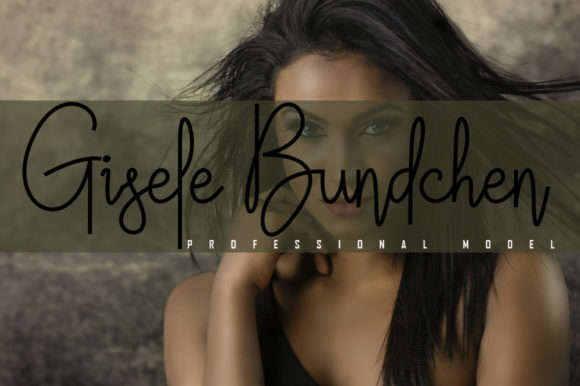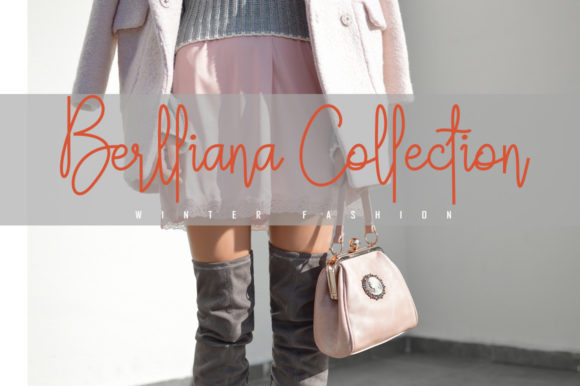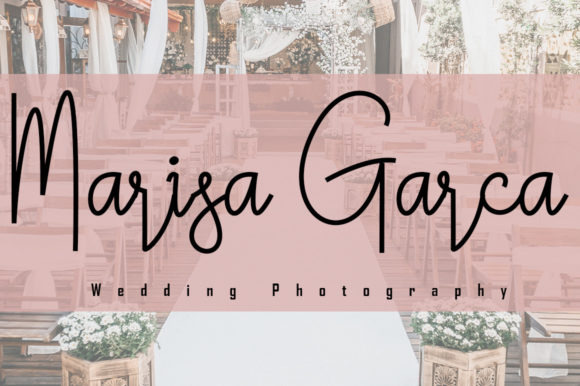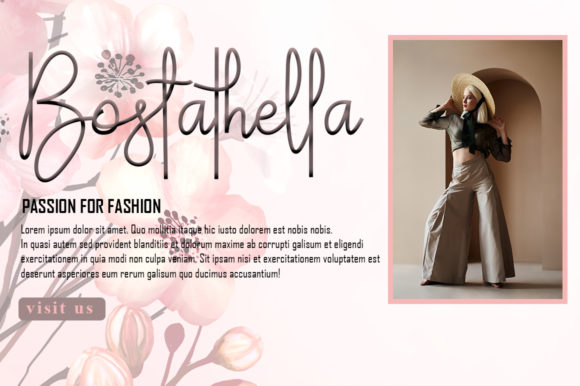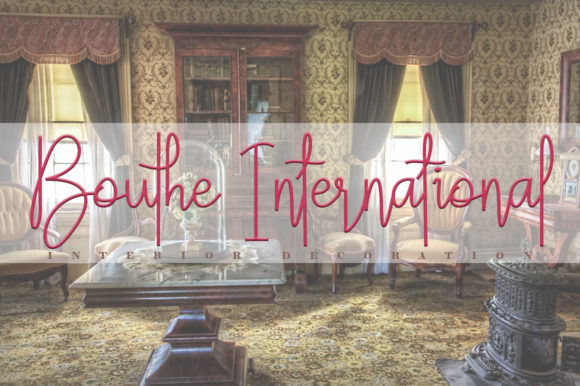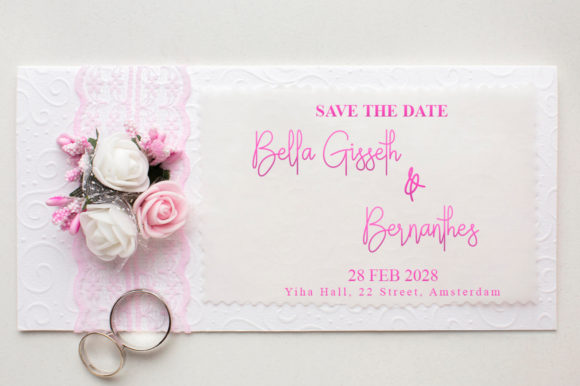
Elevate Your Designs with Black Gray Font: A Timeless and Elegant Choice
In the world of typography, few fonts manage to convey elegance and sophistication as effortlessly as the Black Gray font. This exquisite, thin-lettered, and delicate script font has captured the hearts of designers and crafters alike, and for good reason. Its versatility and refined aesthetic make it an ideal choice for a wide range of design projects, from wedding invitations and thank you cards to quotes, greeting cards, logos, business cards, and more.
The Characteristics of Black Gray Font
Black Gray font is distinguished by its slender lines and delicate curves, which lend it an air of refinement and poise. Its thin lettering allows for a subtle yet impactful presence on any design, making it perfect for projects that require a touch of elegance without overpowering the content. The font’s gray-scale tones add depth and nuance, enabling it to complement a variety of color schemes and design themes.
Why Designers and Crafters Love Black Gray Font
Designers and crafters adore Black Gray font for several reasons:
- Versatility: Whether you’re creating wedding invitations, designing logos, or crafting greeting cards, Black Gray font adapts seamlessly to various design contexts.
- Elegance: The font’s delicate and refined appearance adds a touch of sophistication to any design, making it perfect for projects that demand a high level of elegance.
- Legibility: Despite its thin lines, Black Gray font remains highly legible, ensuring that your message is conveyed clearly and effectively.
- Customization: The font’s simple yet stylish design makes it easy to customize and pair with other fonts, allowing you to create unique and captivating designs.
Perfect Applications for Black Gray Font
Black Gray font is incredibly versatile, making it suitable for a wide range of design applications, including:
- Wedding Invitations: Add a touch of romance and sophistication to your wedding invitations with Black Gray font.
- Thank You Cards: Express your gratitude in style with beautifully designed thank you cards featuring Black Gray font.
- Quotes and Inspirational Messages: Make your quotes and inspirational messages more impactful with the elegant and refined appearance of Black Gray font.
- Greeting Cards: Create stunning greeting cards for special occasions, such as birthdays, anniversaries, and holidays.
- Logos and Branding: Use Black Gray font to create elegant and memorable logos that reflect your brand’s values and personality.
- Business Cards: Stand out from the crowd with professionally designed business cards featuring Black Gray font.
Tips for Using Black Gray Font Effectively
To make the most of Black Gray font, consider the following tips:
- Pair with Contrasting Fonts: Combine Black Gray font with bold or contrasting fonts to create visual interest and hierarchy.
- Experiment with Colors: Don’t be afraid to experiment with different colors and textures to add depth and dimension to your designs.
- Pay Attention to Spacing: Ensure that your design has sufficient spacing and kerning to maintain the font’s elegance and legibility.
Black Gray font is a timeless and elegant choice for designers and crafters seeking to add a touch of sophistication to their designs. Its versatility, refined aesthetic, and high-quality appearance make it perfect for a wide range of design projects. By incorporating Black Gray font into your design repertoire, you’ll be able to create stunning and memorable designs that leave a lasting impression.